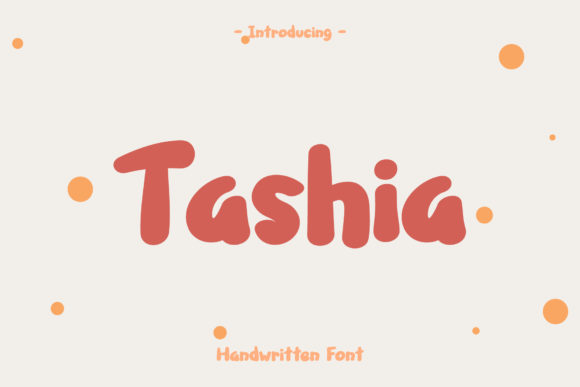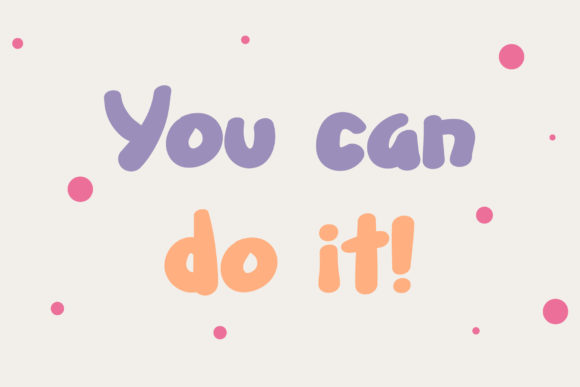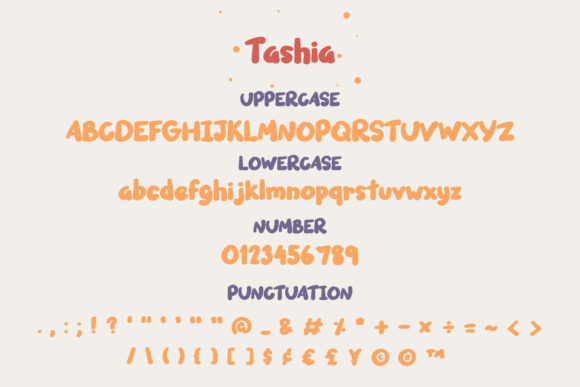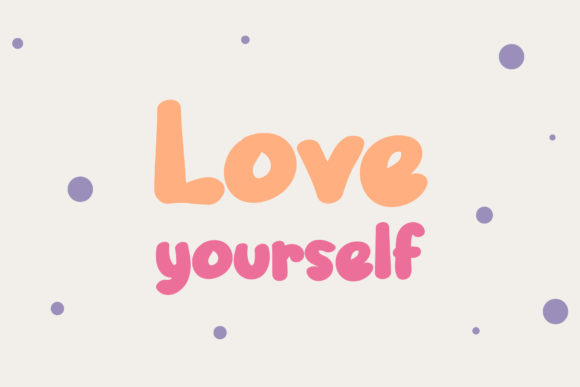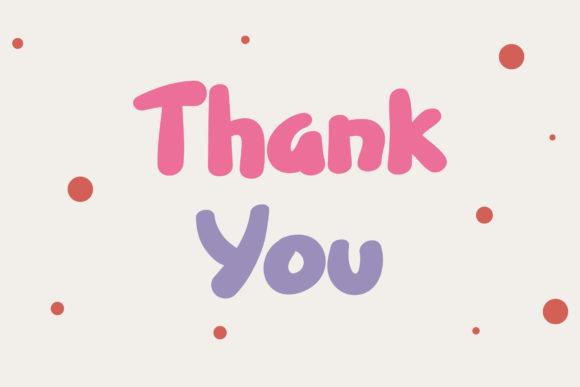
Tashia Font
About Tashia Font
Tashia is a sweet, playful handwritten font created with the help of a brush pen. A little bit quirky, this font gives a relaxed feeling to any of the design projects you envision to create. Use Tashia font to a wide variety of topics and make your ideas stand out!